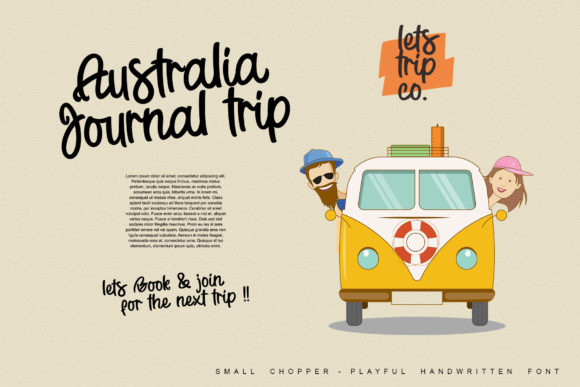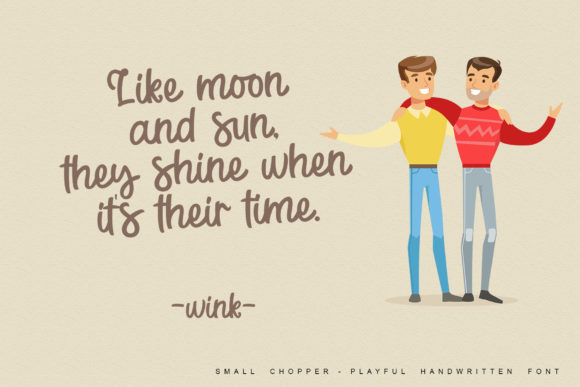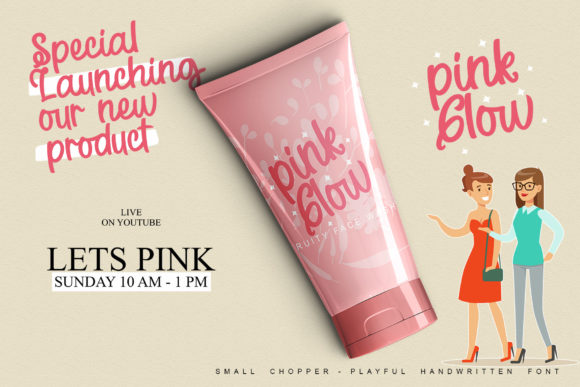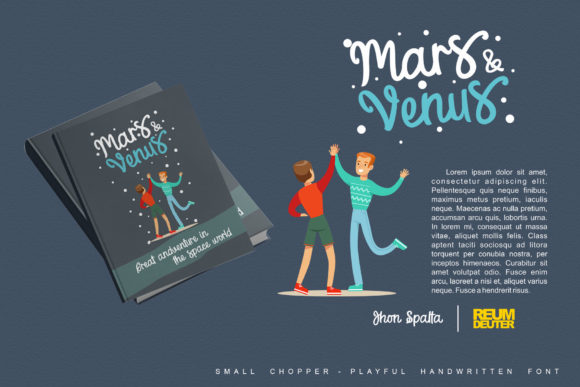
About Small Chopper Font
Small Chopper is an playful handwritten font, masterfully designed to become a true favorite. It maintains its classy influences while feeling contemporary and fresh. Fall in love with it and bring your projects to the highest levels!